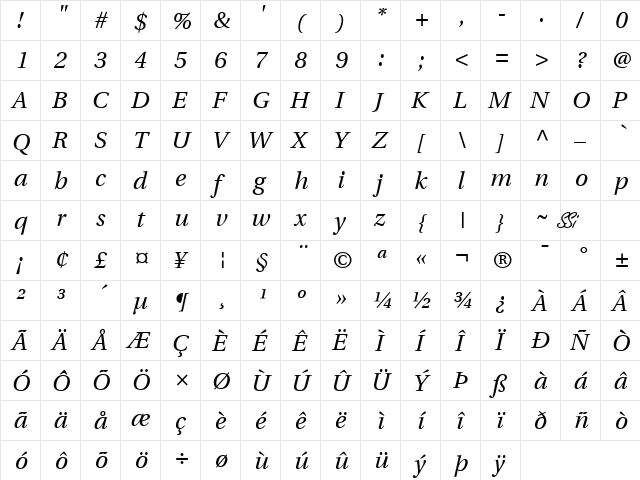
Veracity SSi Italic
Design Context for Veracity SSi Typeface
Veracity SSi is a composed and adaptable typeface that performs quietly and consistently across a wide range of design contexts. Its italic angle brings a sense of urgency and motion to the letterforms.
Pro Tip: Use Veracity SSi for emphasis, pull quotes, and subheadings where its slanted energy can add rhythm to the layout.